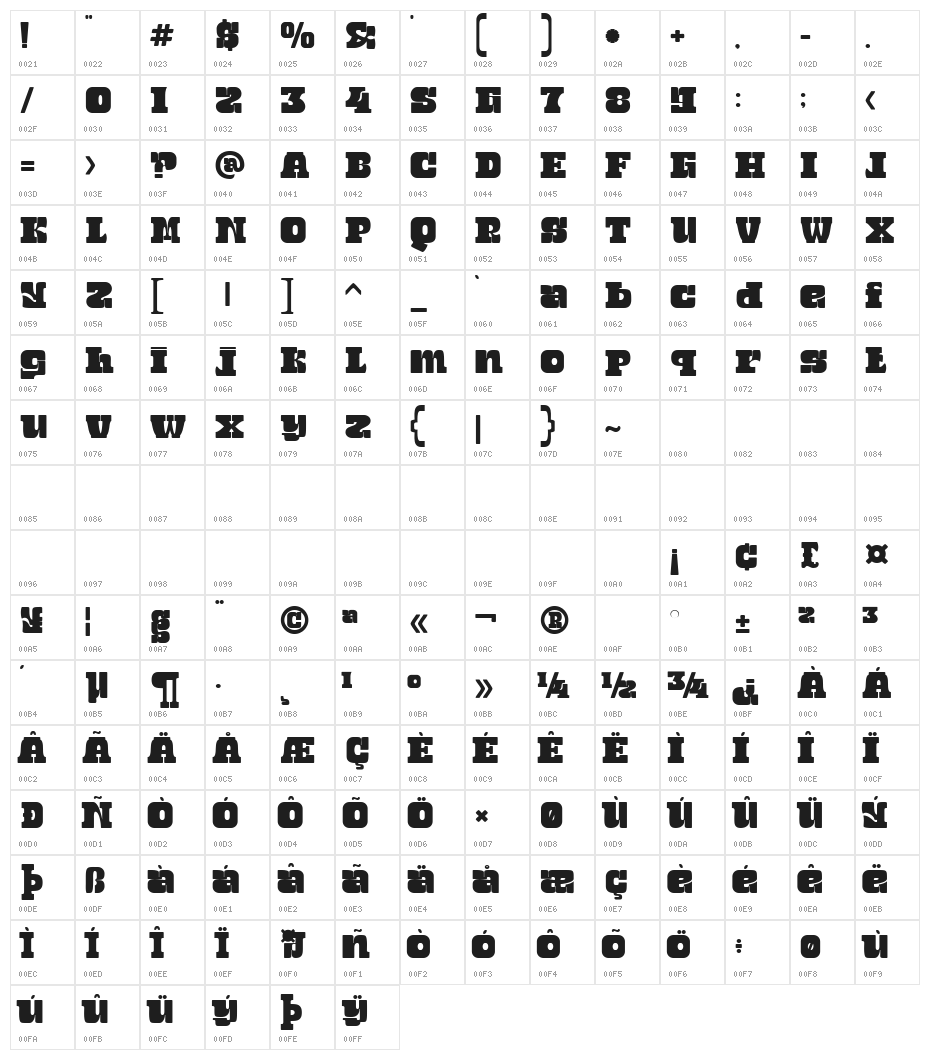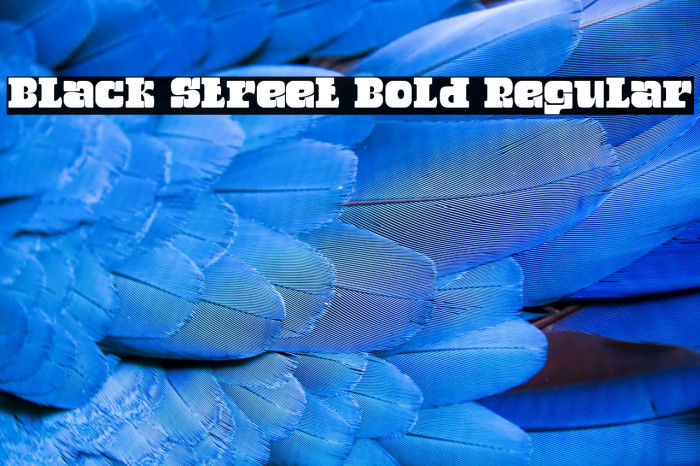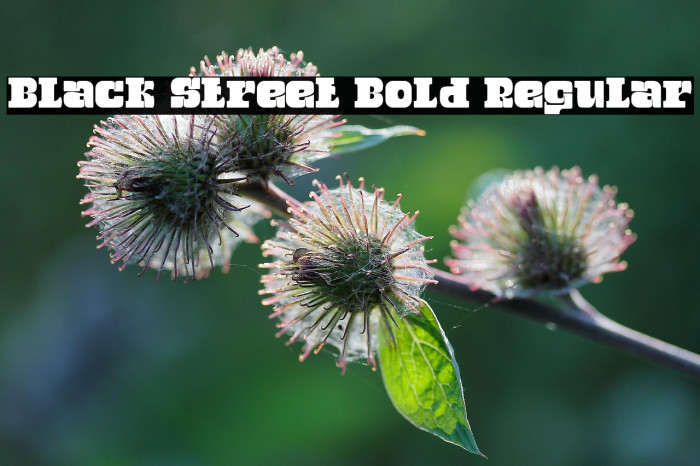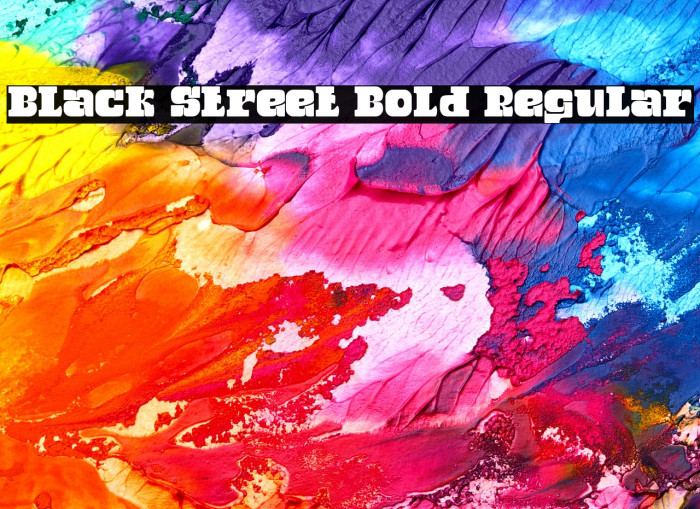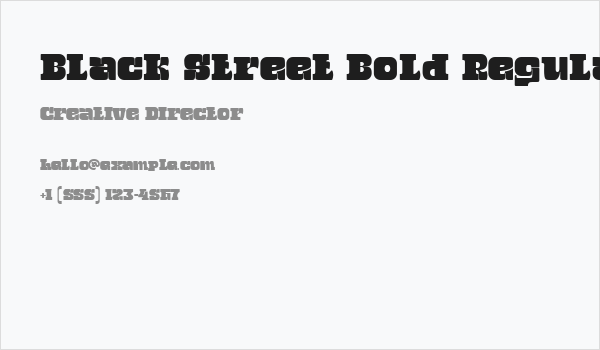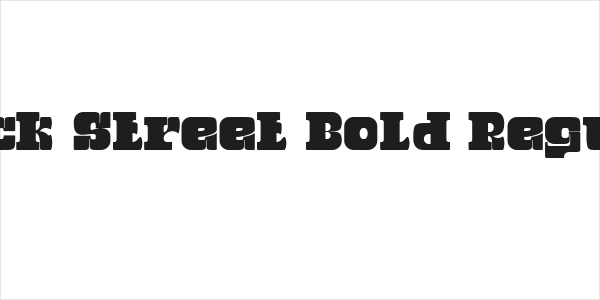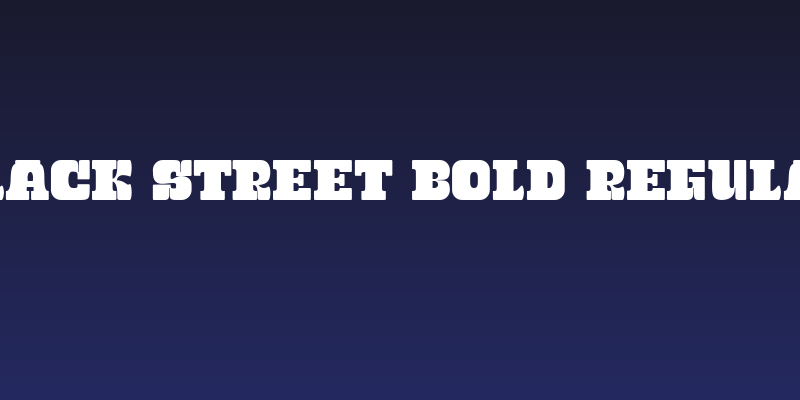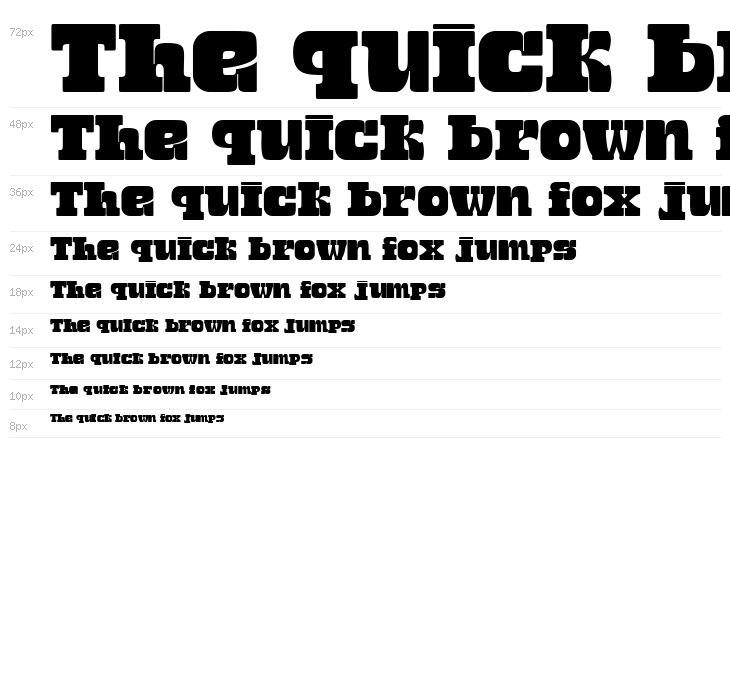
Black Street Bold Regular Font
Black Street Bold Regular Description
This font features a bold and impactful design with thick, blocky letterforms that convey a sense of strength and modernity. The characters are uniformly wide with minimal contrast in stroke thickness, giving them a solid and robust appearance. The uppercase and lowercase letters maintain a consistent style, with the lowercase slightly smaller but equally bold. Numbers and special characters are designed to match the overall aesthetic, ensuring a cohesive look across all text. The font's boldness and unique style make it stand out, ideal for projects that require a strong visual impact.
| Proposed Projects | Ideal for posters, headlines, branding, and any project needing a bold statement. |